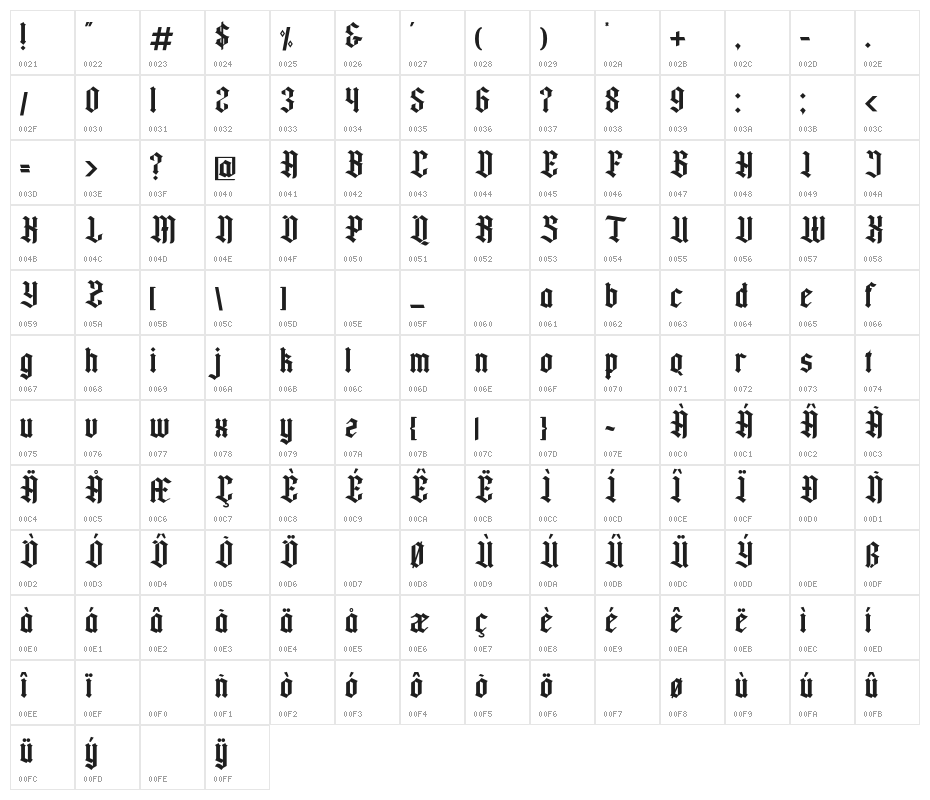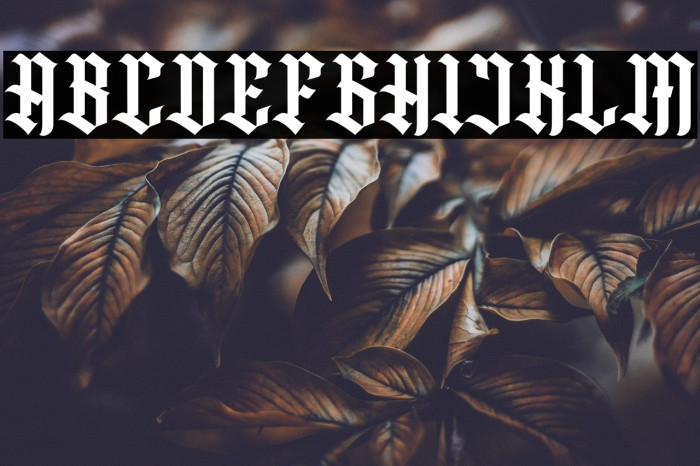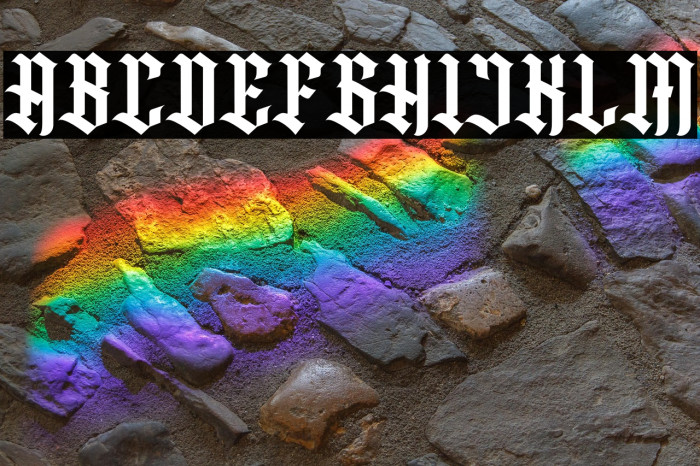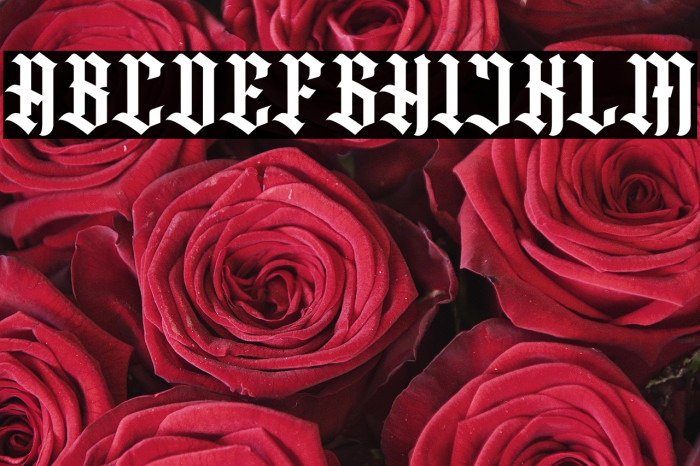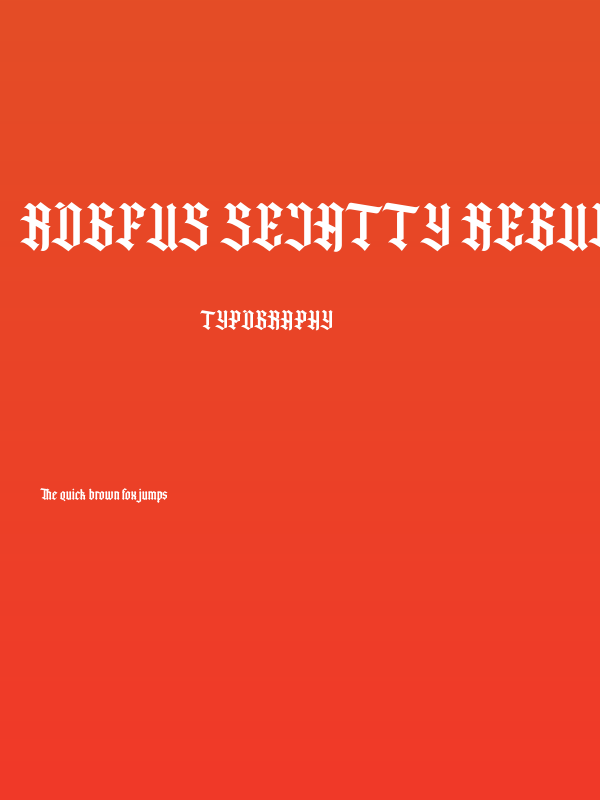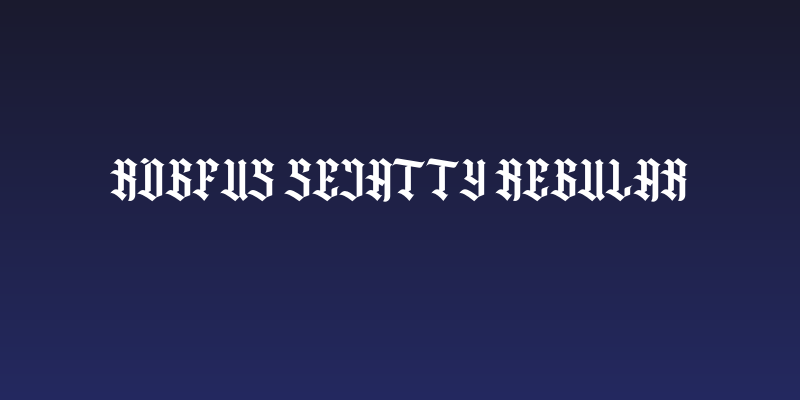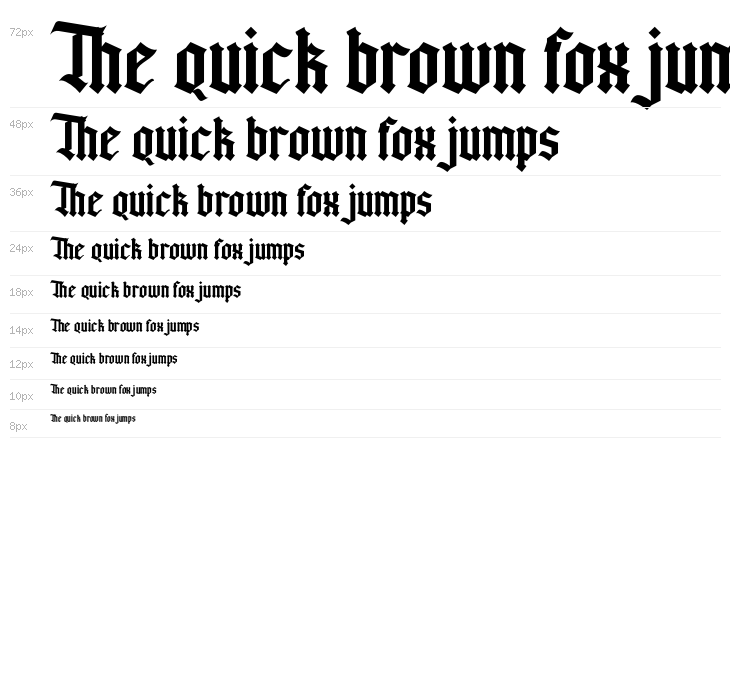
Rogfus Sejatty Regular Font
Rogfus Sejatty Regular Description
This font features a traditional blackletter style, characterized by its ornate and intricate design. The letters have sharp, angular edges and a bold presence, reminiscent of medieval script. The uppercase and lowercase characters maintain a consistent style, with a strong emphasis on vertical strokes and decorative elements. The numerals and special characters are equally detailed, adding to the overall cohesive look. This font is ideal for projects that require a historical or gothic aesthetic, offering a dramatic and eye-catching appearance.